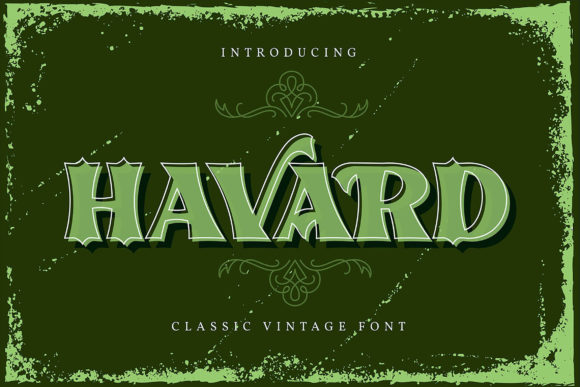
Havard Font: Elevate Your Designs with Bold and Thick Lettering
Are you tired of using the same old fonts in your designs? Look no further than the Havard Font, a bold and thick lettered display font that’s sure to take your projects to the next level. With its confident and eye-catching style, Havard is the perfect addition to any designer’s toolkit.
What Makes Havard Font Stand Out?
Havard Font is a game-changer for designers and crafters alike. Its bold and thick lettering makes it perfect for headlines, titles, and any other text that needs to make a statement. But what really sets Havard apart is its PUA (Private Use Area) encoding. This means that you can access all of the glyphs and swashes with ease, giving you unparalleled flexibility and creativity.
The Benefits of PUA Encoding
PUA encoding is a feature that’s often overlooked, but it’s a total game-changer for designers. With PUA encoding, you can access a wide range of glyphs and swashes that can be used to add unique touches to your designs. This means that you can customize your text to fit your brand’s style and aesthetic, without having to worry about compatibility issues.
Havard Font is perfect for designers and crafters who want to add a professional touch to their work. Whether you’re creating logos, brochures, or social media graphics, Havard is the perfect choice. Its bold and thick lettering makes it easy to read, even at small sizes, and its PUA encoding gives you the flexibility to customize it to fit your needs.
Tips for Getting the Most Out of Havard Font
Here are a few tips for getting the most out of Havard Font:
- Use it for headlines and titles to add a bold and confident touch to your designs.
- Experiment with different glyphs and swashes to add unique touches to your text.
- Pair it with other fonts to create a unique and eye-catching combination.
- Don’t be afraid to get creative and try new things – Havard is a versatile font that can be used in a wide range of design applications.
- Bold and thick lettered display font
- Perfect for headlines, titles, and other text that needs to make a statement
- Perfect for designers and crafters